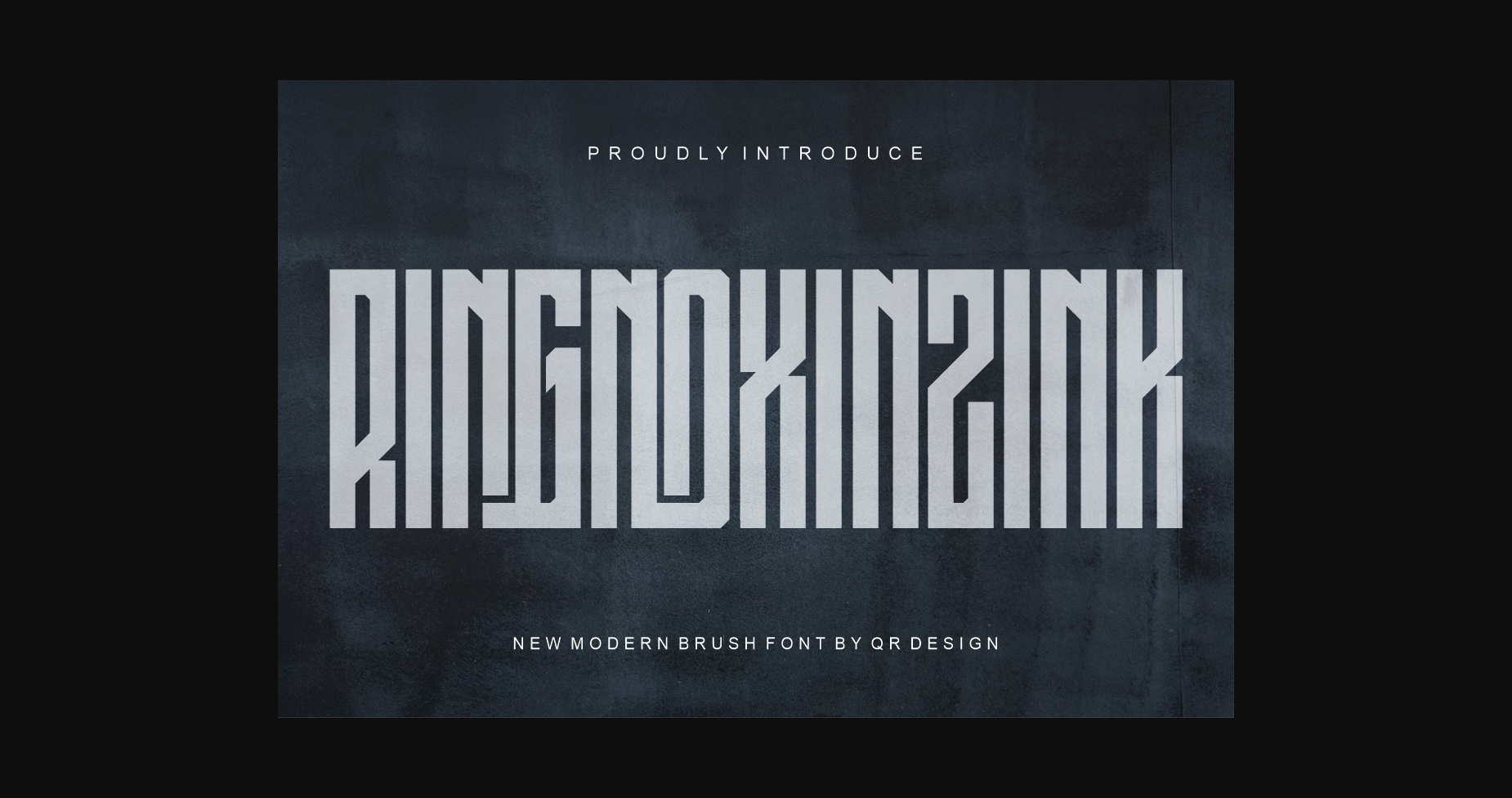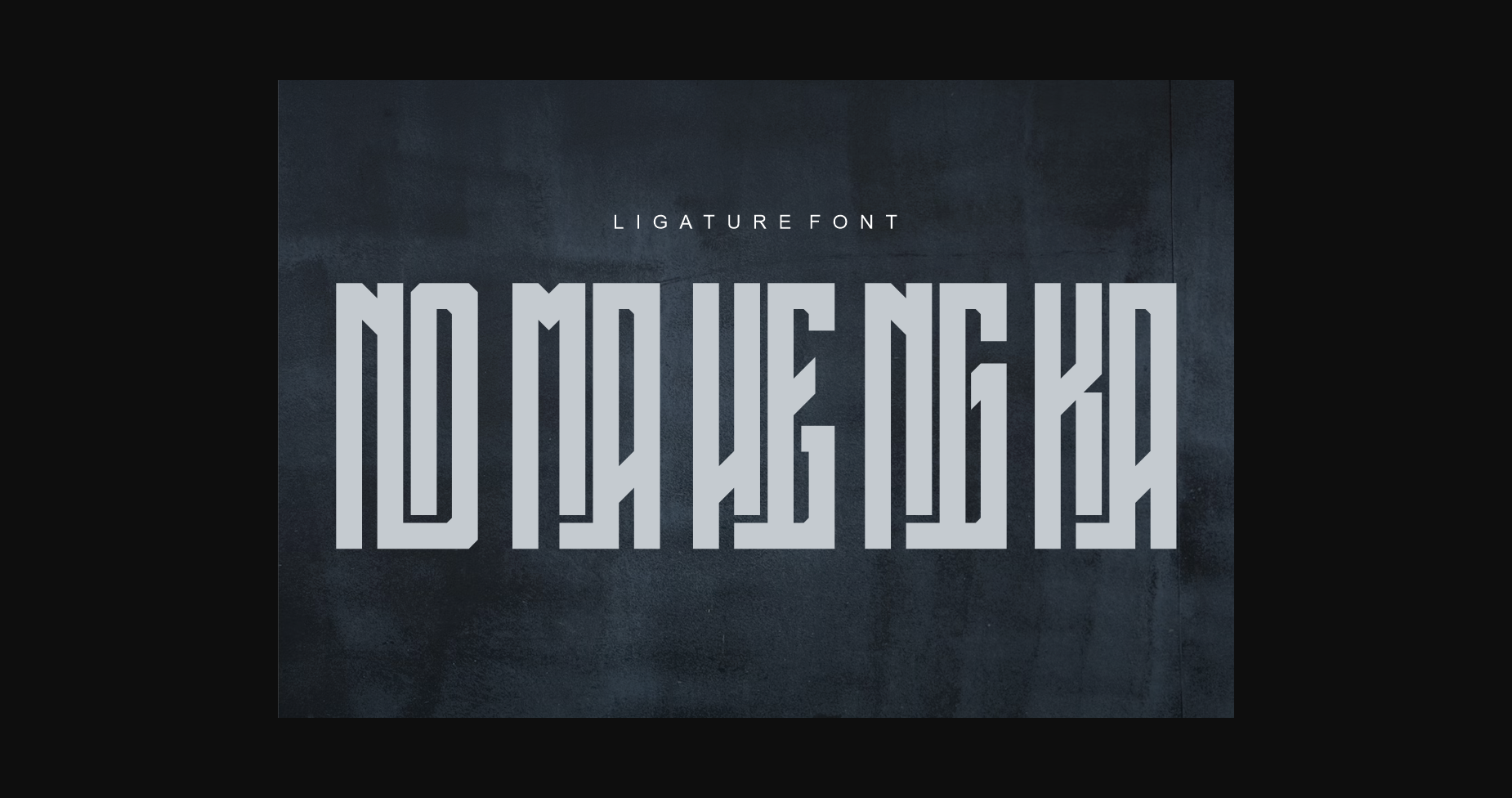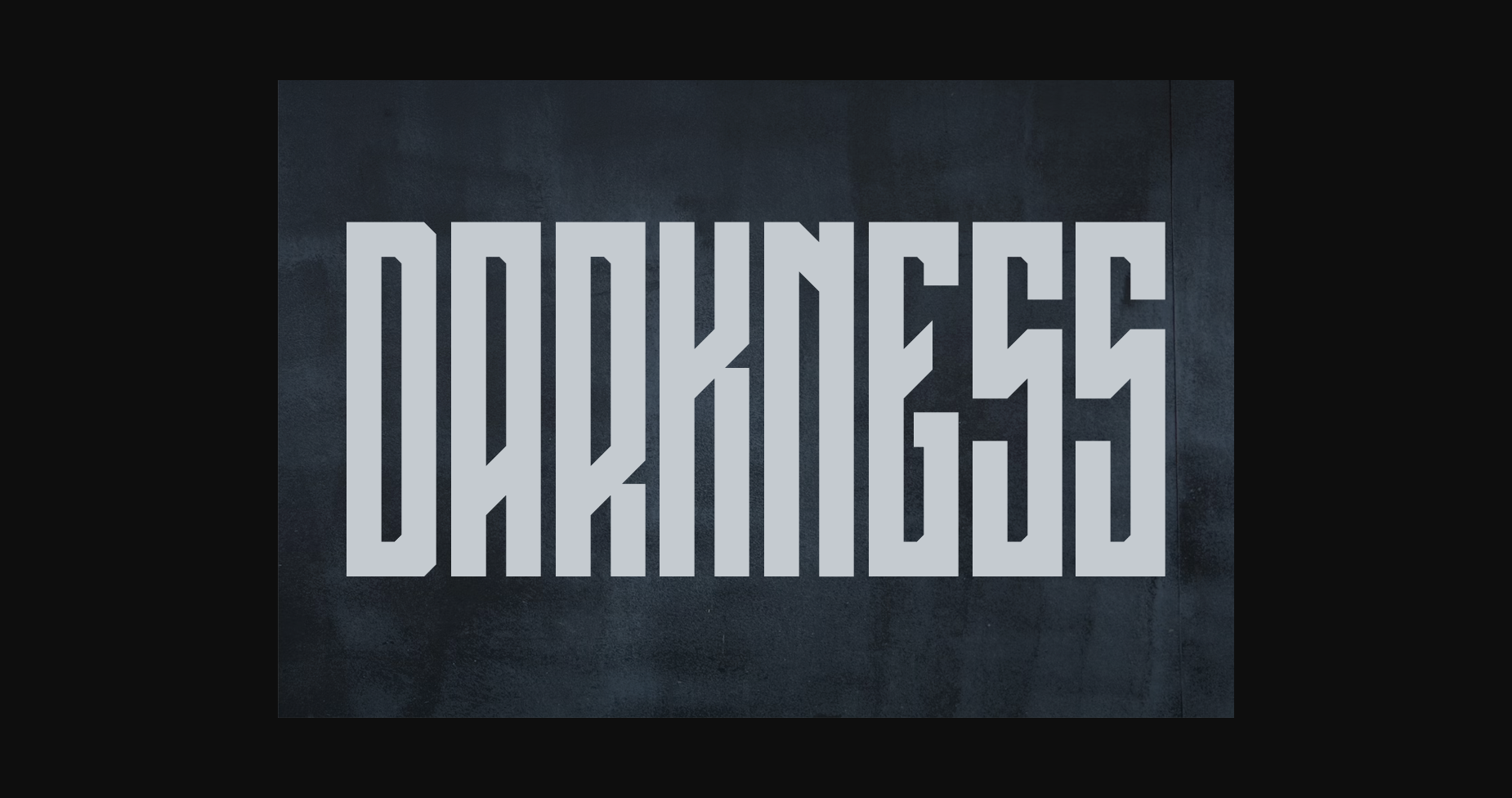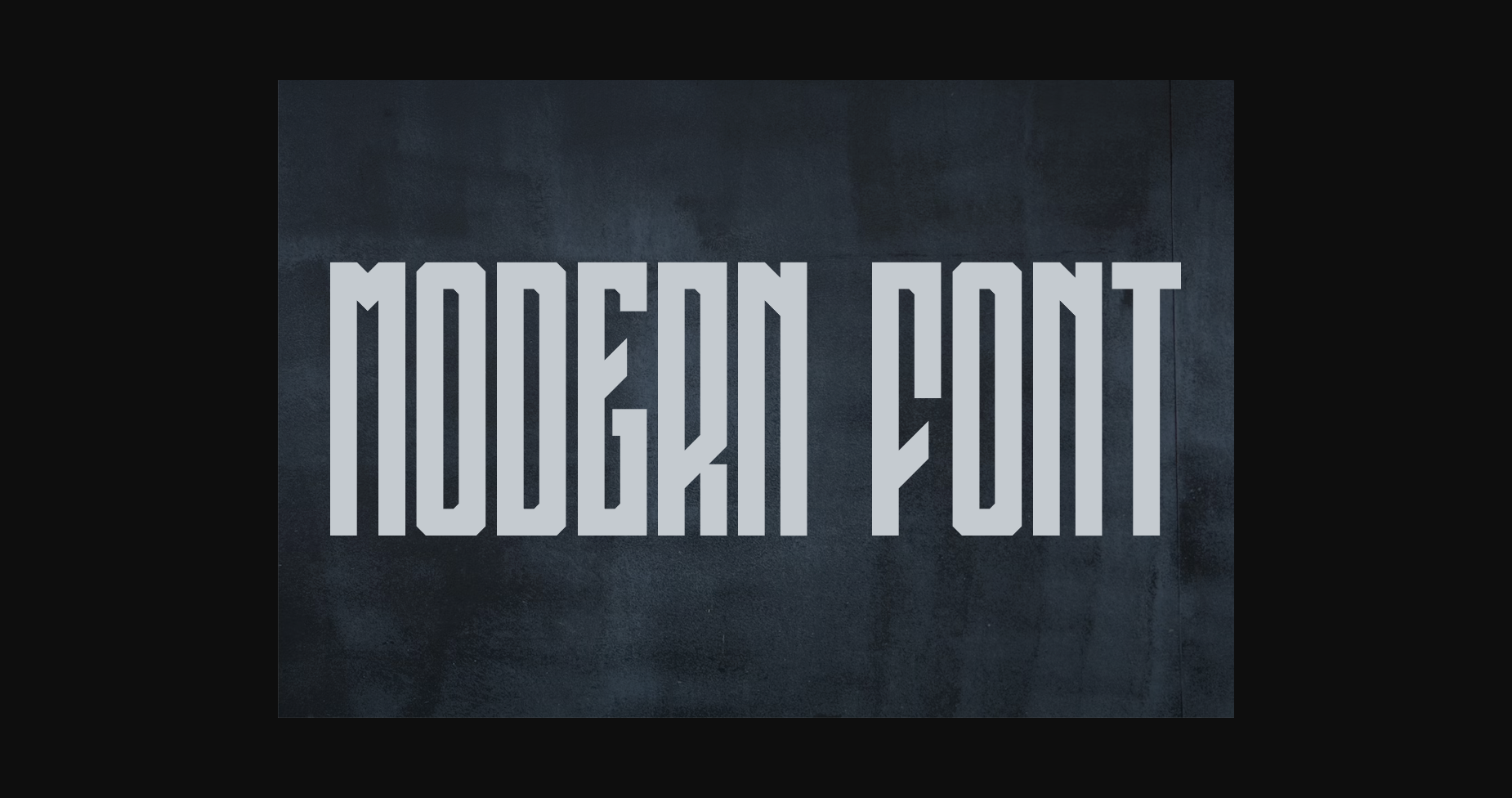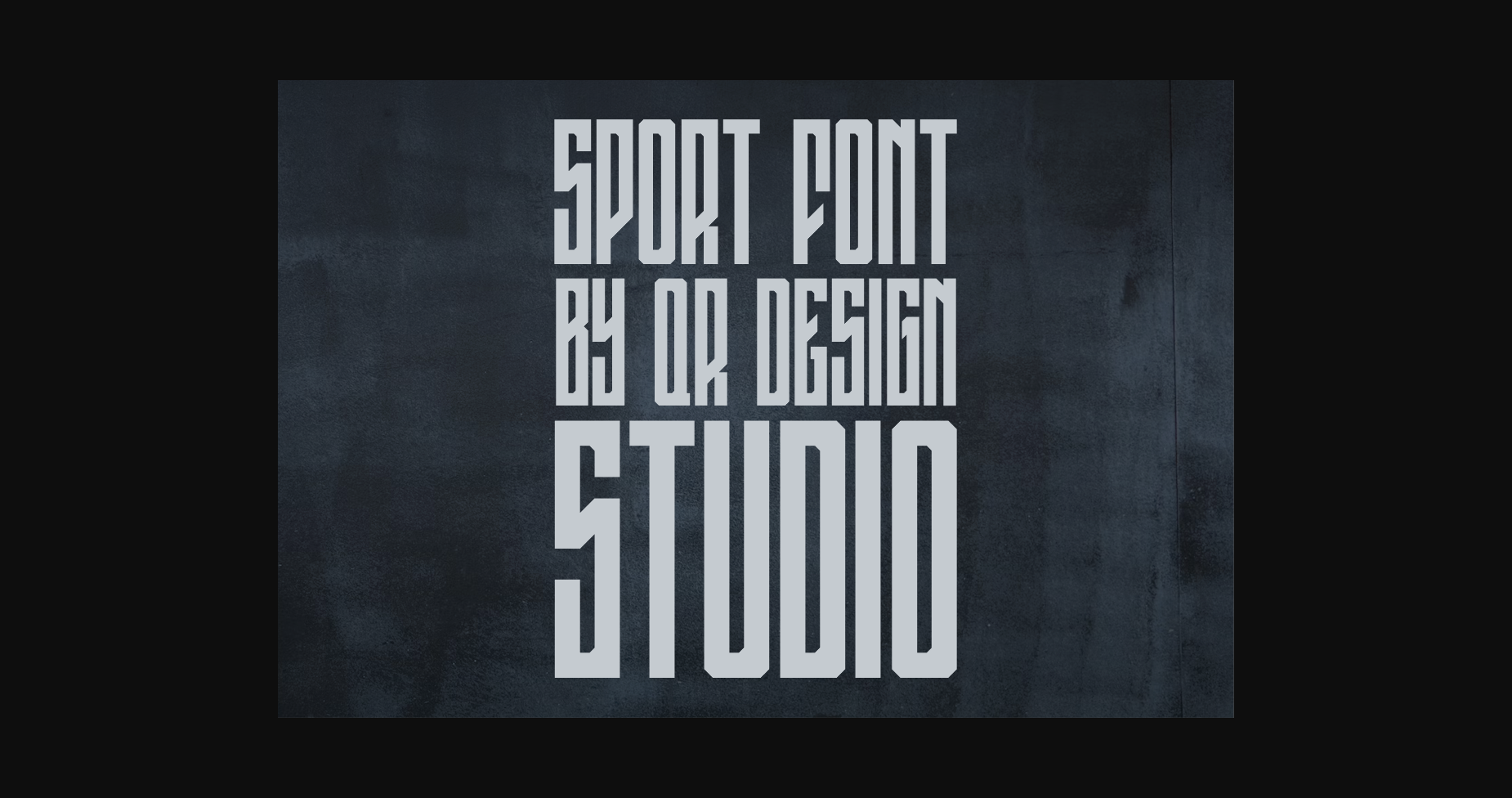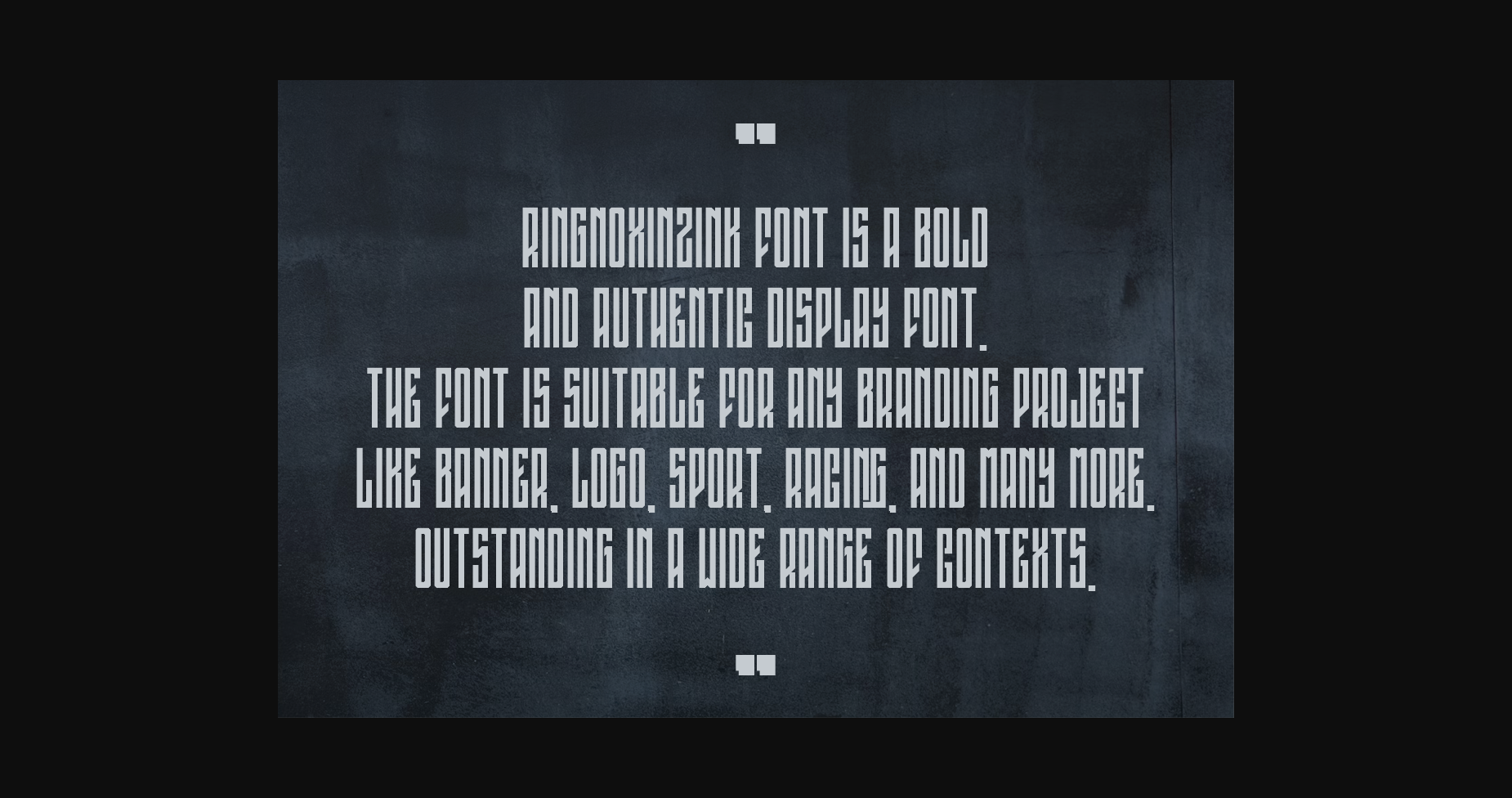
About Ringnoxinzink Font
Ringnoxinzink Font is a bold and authentic display font.
The font is suitable for any branding project like logos, sports, and many more.